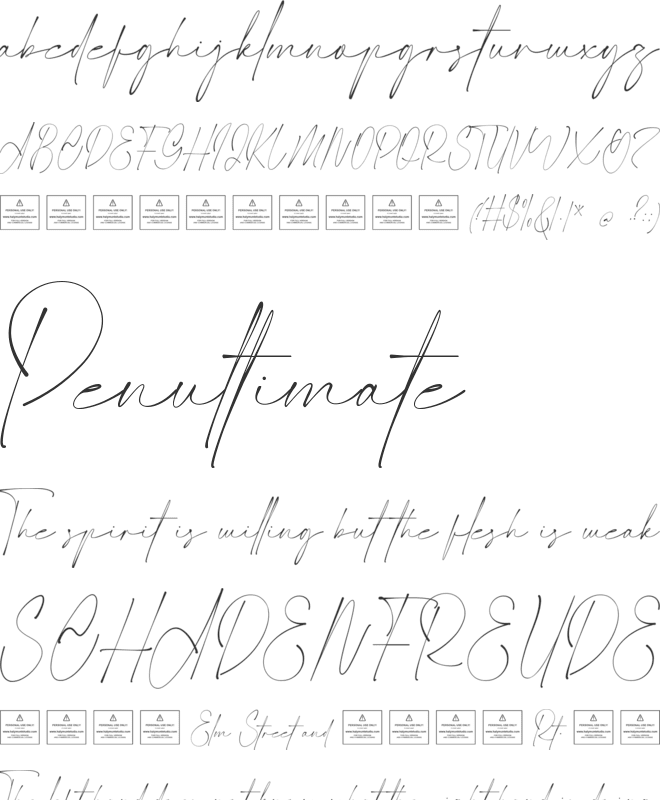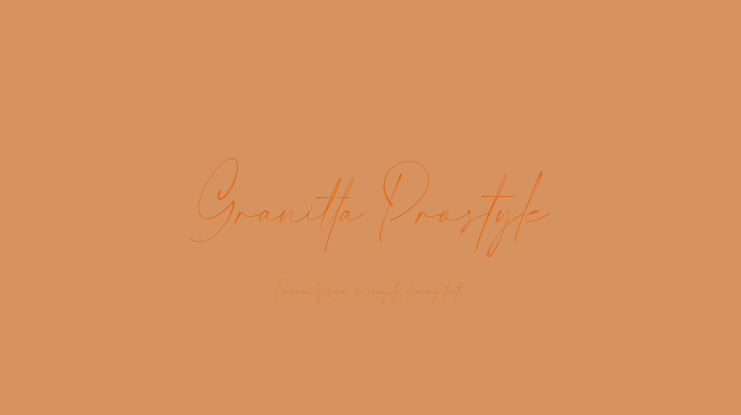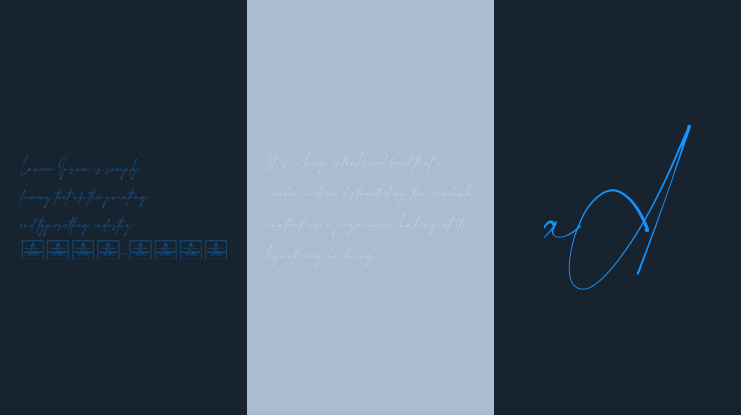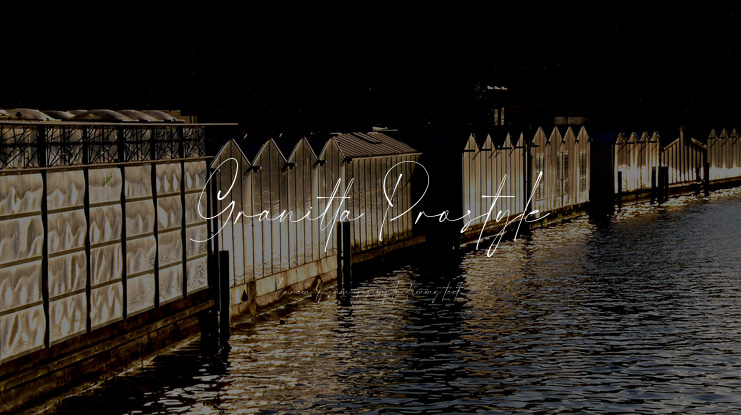
Granitta Prostyle Font
This Font designed by Halymunt Studio is an exquisite handwritten typeface, masterfully designed to become a true favorite. Perfect for branding projects, logo, wedding designs, social media posts, advertisements, product packaging, product designs, label, photography, watermark, invitation, stationery, and any projects that need handwriting taste.